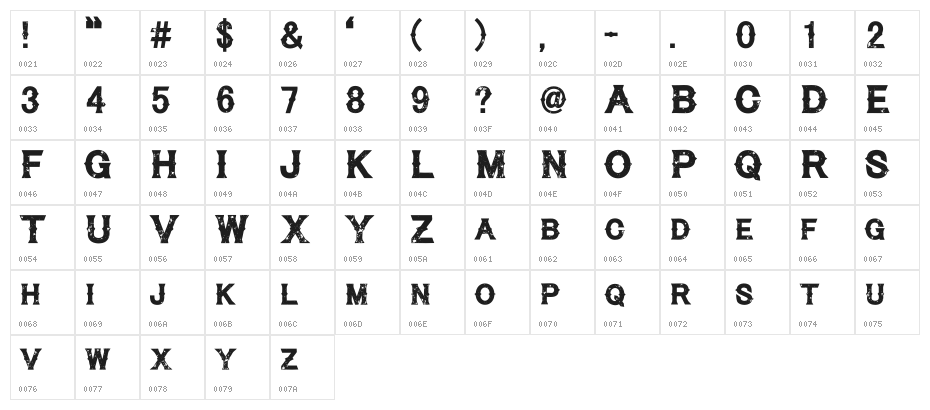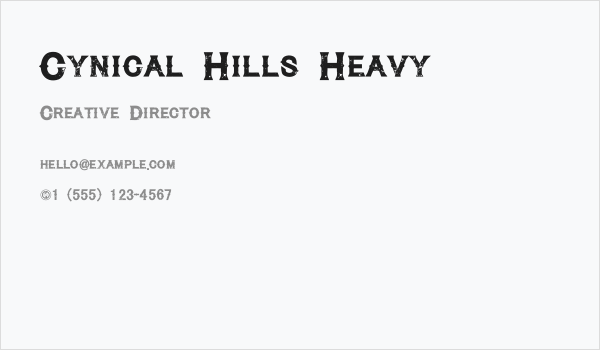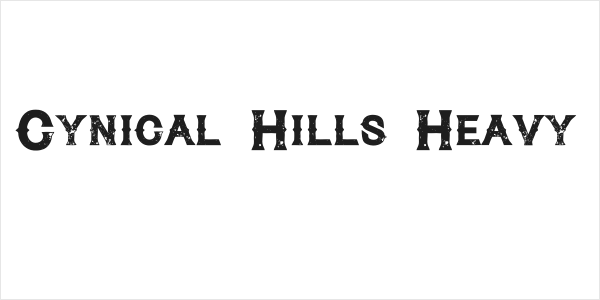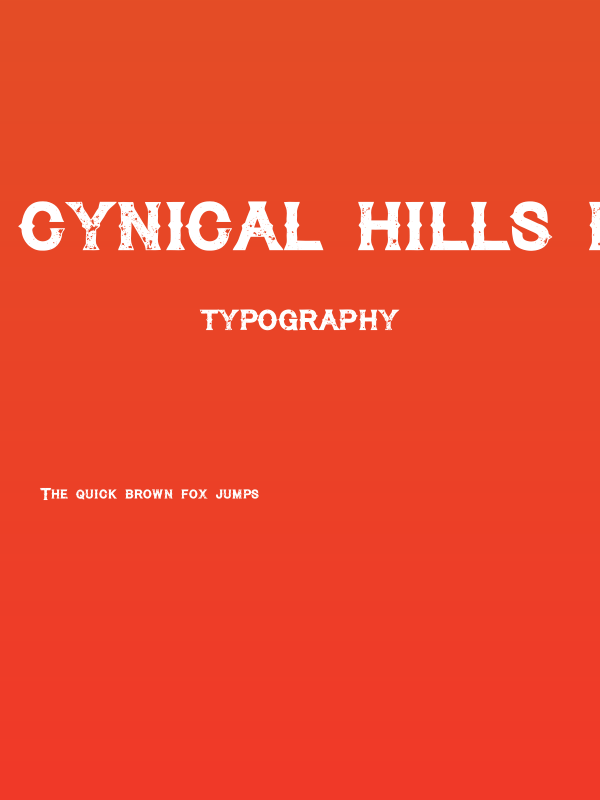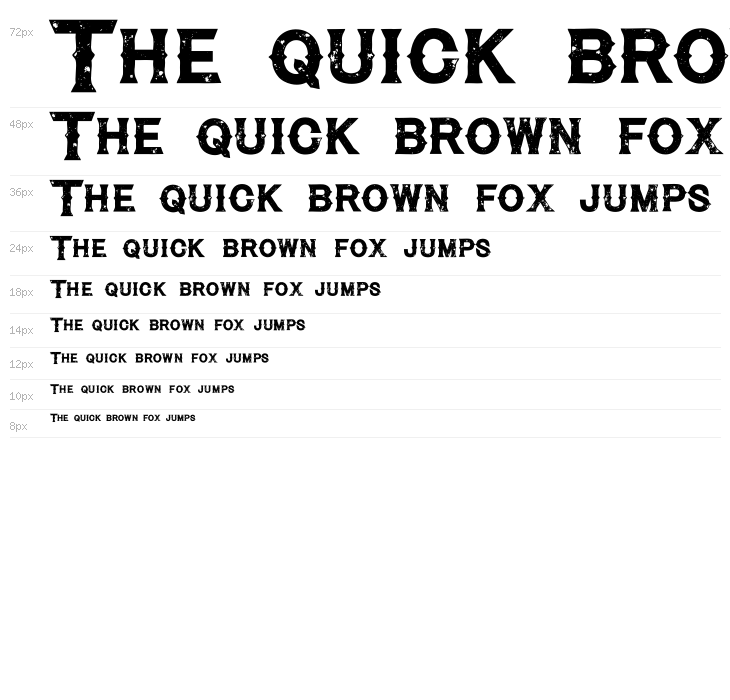
Cynical Hills Heavy Font
Cynical Hills Heavy Description
This font features a bold, distressed style with a rugged, textured appearance that gives it a grunge or vintage feel. The characters are bold and heavy, with irregular edges and a worn-out look, suggesting a sense of age and history. The uppercase and lowercase letters maintain a consistent style, with numbers and special characters following the same distressed pattern. This font is ideal for projects that require a strong, impactful visual presence, such as posters, album covers, or branding that aims to convey a sense of edginess or rebellion.
| Proposed Projects | Posters, album covers, branding, logos, and any design needing a grunge or vintage aesthetic. |